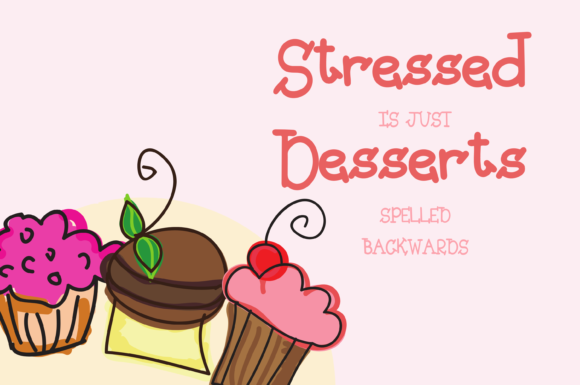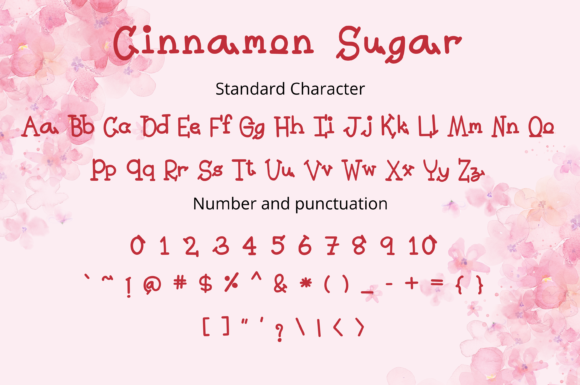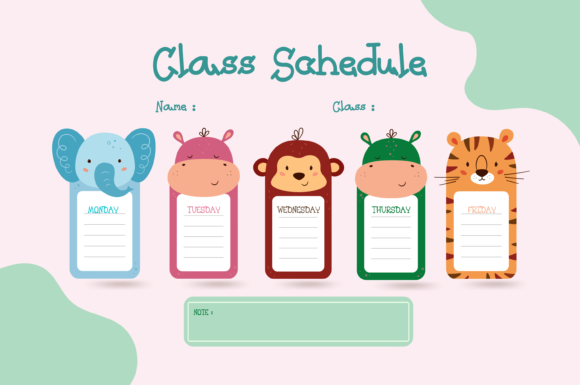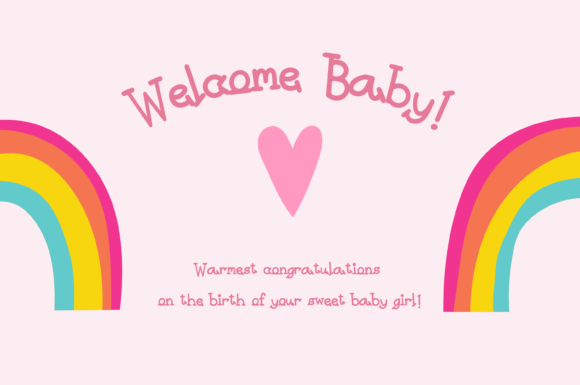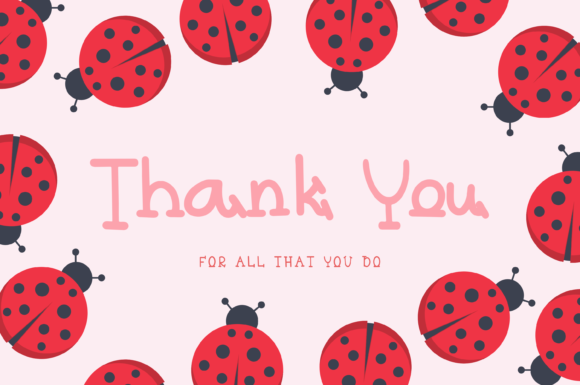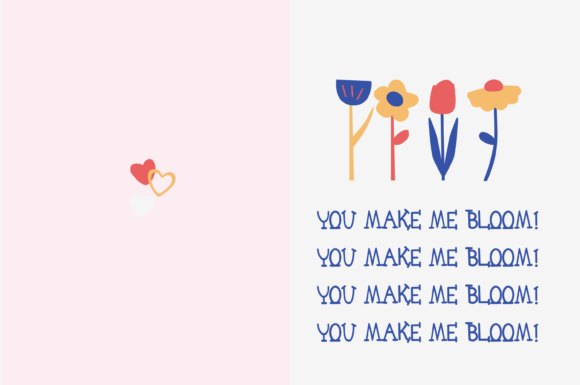
About Cinnamon Sugar Font
Introducing “Cinnamon Sugar,” a whimsical and stylish handwritten font that adds a sprinkle of charm and playfulness to your design projects. With its unique and captivating style, “Cinnamon Sugar” has the ability to effortlessly enhance a wide range of creative ideas, making them truly stand out in the crowd.
The fluid and artistic strokes of “Cinnamon Sugar” create a sense of movement and liveliness, infusing your designs with a joyful and vibrant energy. Whether you’re working on branding, posters, invitations, social media graphics, or any other project that needs a touch of whimsy, “Cinnamon Sugar” can easily adapt and elevate your designs.
One of the remarkable features of “Cinnamon Sugar” is its versatility—it seamlessly complements an incredibly large set of projects, allowing you to explore a multitude of creative possibilities. The font’s playful yet stylish character ensures that it can effortlessly match various design themes and aesthetics.
By adding “Cinnamon Sugar” to your creative toolbox, you’re inviting a sense of delight and flair into your work. The font’s unique personality and handcrafted feel make it a fantastic choice for projects that require a touch of originality and creativity.
Whether your design calls for a dash of sweetness or a hint of whimsy, “Cinnamon Sugar” has the power to transform your ideas into eye-catching and memorable creations. Embrace the playful elegance of “Cinnamon Sugar” and watch as it brings a touch of magic to your design projects, helping them truly stand out and leave a lasting impression.